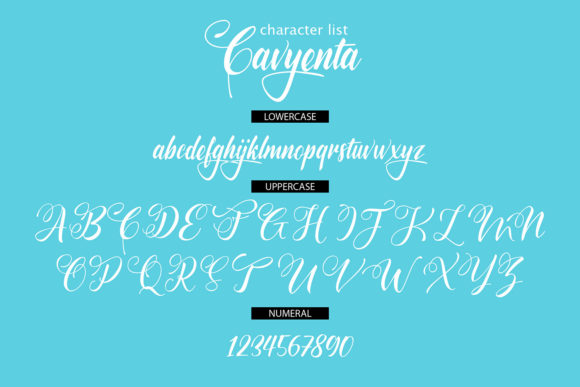
About Cavyenta Font
Cavyenta is an elegant script font with a contemporary atmosphere and impeccable form, inspired by timeless classic calligraphy. Not too thin and not too thick, balanced and varied, this font was designed to enhance the beauty of your projects.